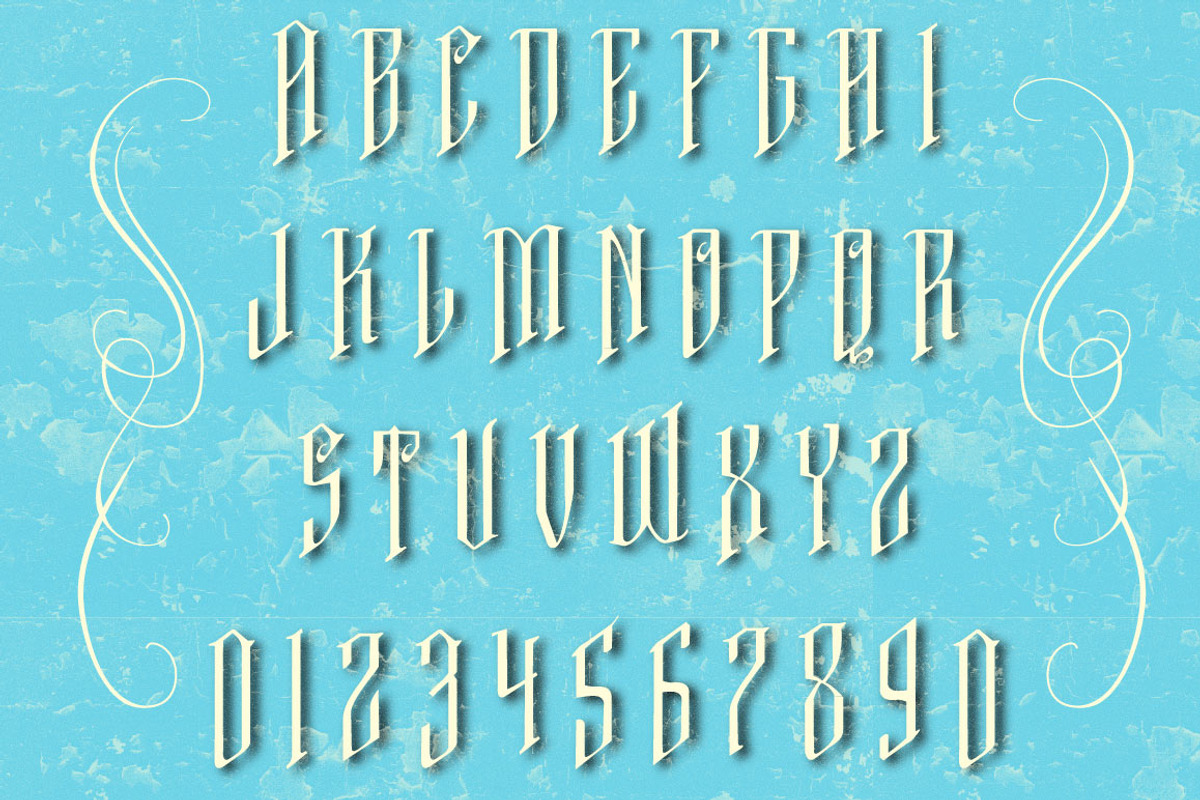
Free Soul font
Free Soul font by vtks design is a font selected for branding, posters, packaging, typography.
Why Free Soul font is worth a look
Free Soul font by vtks design fits naturally into Branding, posters, packaging, typography.